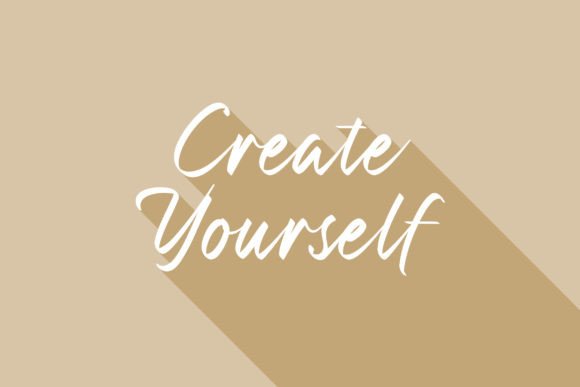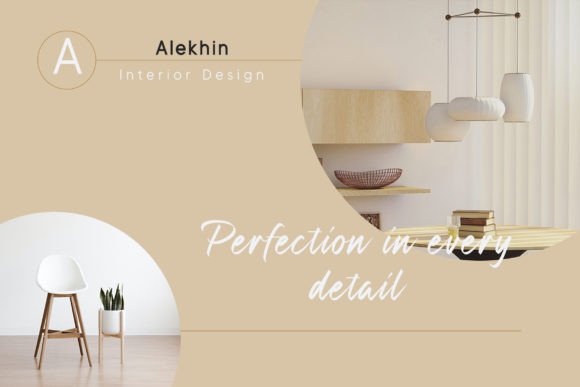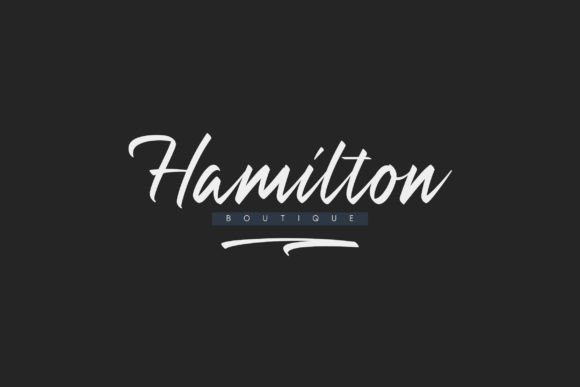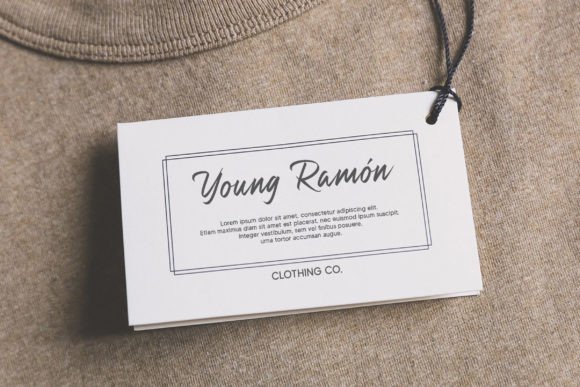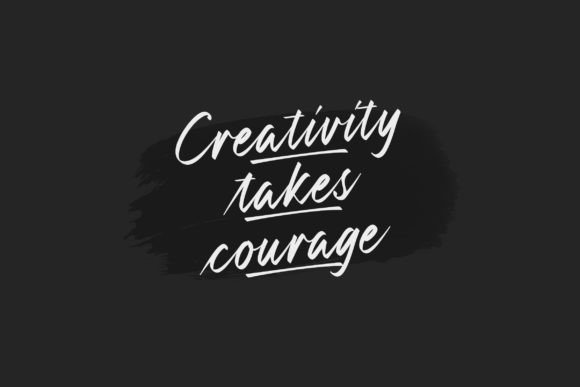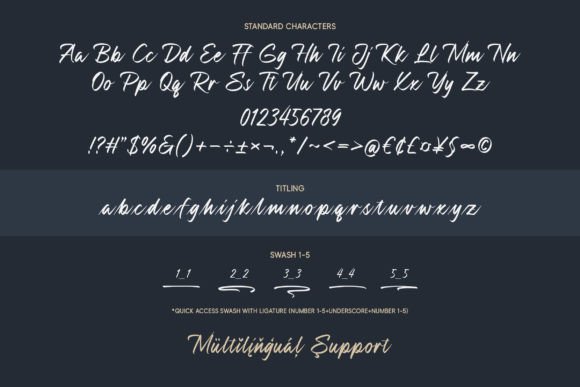
Introduction to Mountisa Font
Mountisa is a handwritten font with a dynamic and energetic style.
It’s perfect for signature, stationery, photography, social media posts, product packaging, greeting cards, and every other design that needs a unique and striking font Add it to your most creative ideas, and notice how it makes them come alive.
Key Features of Mountisa Font